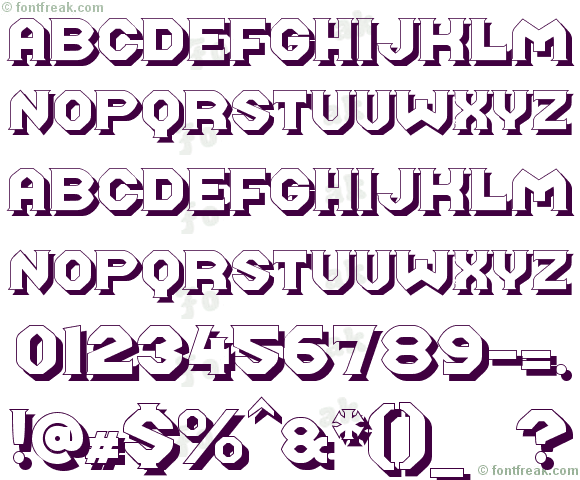
Midroba
Midroba Schatten
About Midroba
Midroba, designed by Peter Wiegel, is a striking display font that exudes a modern and bold character. This sans-serif typeface features geometric forms and a robust structure, making it an eye-catching choice for various design projects. The font showcases a consistent stroke weight with minimal contrast, allowing for clarity and legibility, even at larger sizes. Its well-balanced spacing enhances readability, making it suitable for both headlines and body text alike.
With its distinctive visual style, Midroba is perfect for a variety of applications. Graphic designers can leverage this font for creating impactful movie posters, where its bold presence draws attention and communicates themes effectively. It also shines in branding projects, particularly for small businesses looking to establish a memorable identity. The font is well-suited for restaurant menus, providing an inviting feel that complements the dining experience. Additionally, it can elevate wedding invitations, giving them a contemporary touch while maintaining elegance.
The target audience for the Midroba font includes graphic designers, small business owners, and content creators who seek to make a statement through their typography choices. Whether used in digital or print formats, this font is versatile and adaptable, catering to diverse design needs.